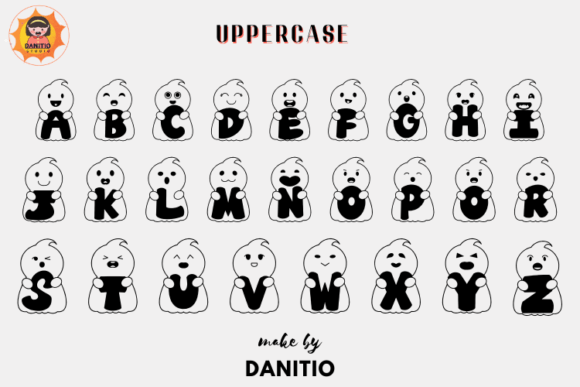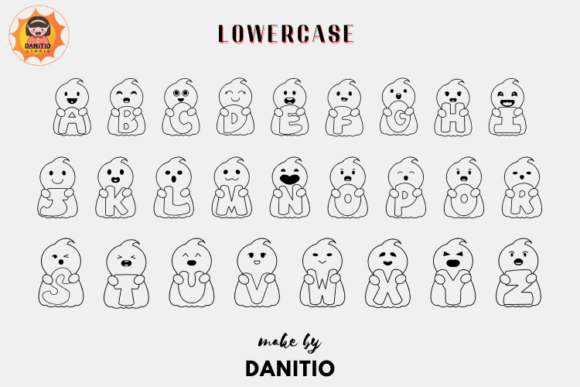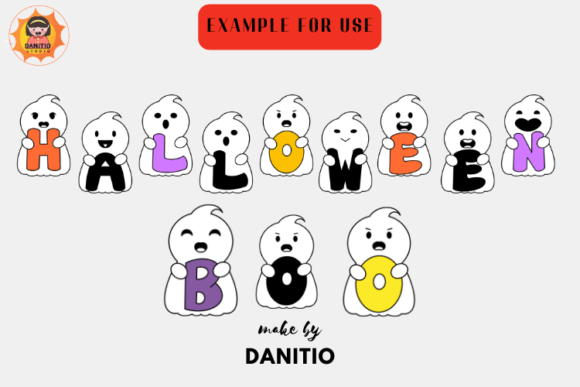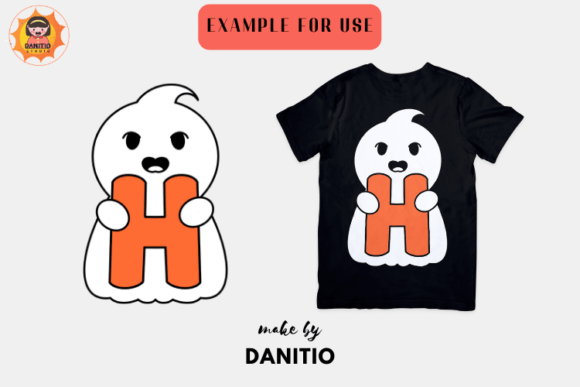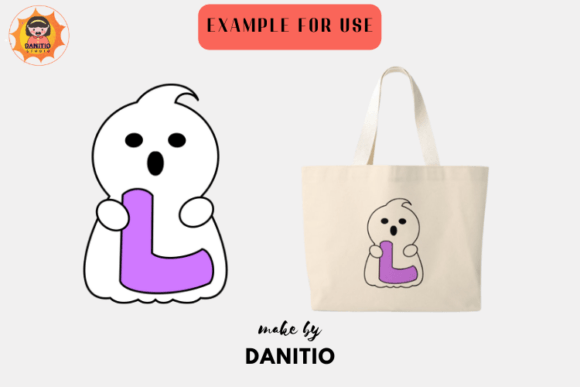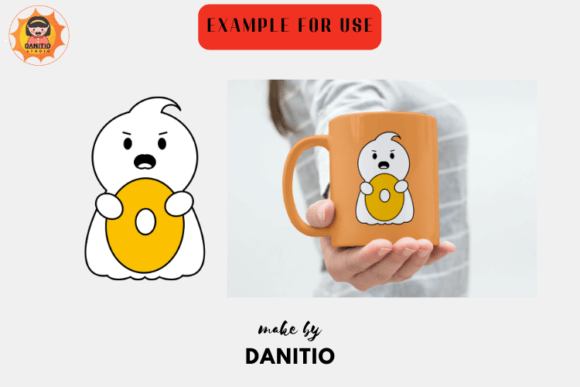
Cute Ghost Version 2 Font: The Perfect Addition to Your Halloween Designs
Are you looking for a unique and adorable font to add a touch of Halloween spirit to your designs? Look no further than the Cute Ghost Version 2 font, a delightful Dingbats font that’s perfect for the spookiest time of the year. In this article, we’ll explore the features and benefits of this charming font, and how you can use it to elevate your designs and products.
What is Cute Ghost Version 2 Font?
Cute Ghost Version 2 is a Dingbats font that features a collection of cute and adorable ghost designs. With many different styles of ghosts to choose from, this font is perfect for adding a playful touch to your Halloween-themed designs. Whether you’re creating t-shirts, tote bags, mugs, book covers, or coloring books, this font is sure to add a delightful and festive flair.
Key Features of Cute Ghost Version 2 Font
- Cute and Adorable Designs: The Cute Ghost Version 2 font features a range of ghost designs that are sure to capture the hearts of designers and crafters alike. From sweet and innocent to playful and mischievous, there’s a ghost design to suit every style and preference.
- Dingbats Font: As a Dingbats font, Cute Ghost Version 2 is easy to use and can be accessed via your keyboard or design software. This makes it simple to add a touch of Halloween fun to your designs, without requiring extensive design expertise.
- Versatile: The Cute Ghost Version 2 font is perfect for a wide range of design applications, from t-shirts and tote bags to mugs, book covers, and coloring books. You can use it to create a cohesive brand identity or to add a seasonal touch to your designs.
Benefits of Using Cute Ghost Version 2 Font
So why choose the Cute Ghost Version 2 font for your Halloween designs? Here are just a few benefits of using this delightful font:
- Adds a Touch of Whimsy: The Cute Ghost Version 2 font adds a playful and whimsical touch to your designs, making them perfect for Halloween-themed projects.
- Increases Visual Appeal: With its range of cute and adorable ghost designs, this font is sure to capture the attention of your audience and add visual appeal to your designs.
- Boosts Creativity: The Cute Ghost Version 2 font is a versatile and fun design element that can help to boost your creativity and inspire new ideas.
How to Use Cute Ghost Version 2 Font in Your Designs
Using the Cute Ghost Version 2 font in your designs is easy. Here are a few tips to get you started:
- Pair with Other Halloween Fonts: Combine the Cute Ghost Version 2 font with other Halloween-themed fonts to create a unique and eye-catching design.
- Use on T-Shirts and Apparel: Add a touch of Halloween fun to your t-shirts, hoodies, and other apparel with the Cute Ghost Version 2 font.
- Add to Your Digital Designs: Use the Cute Ghost Version 2 font in your digital designs, such as social media graphics, blog posts, and email newsletters.